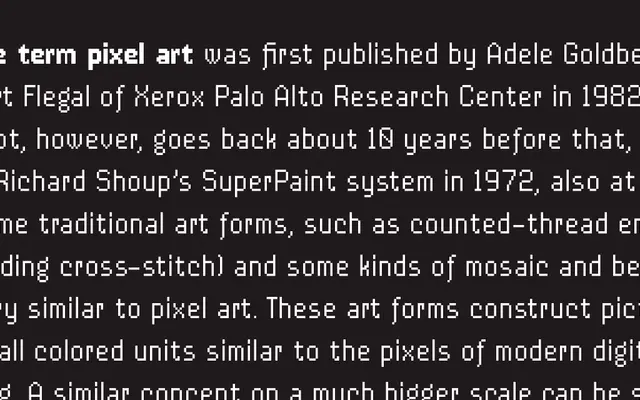
A pixel typeface built on a 20px grid, drawing from 1980s video game aesthetics and refined with over 300 manual kerning pairs.
Conceived at 20px to allow greater structural freedom, Dixplay sits in an interesting position for a pixel font: it has been given serious typographic attention where most of its peers have none. Over 300 manually fitted kerning pairs are unusually meticulous for the genre, and the result works at screen sizes and their multiples with genuine grid integrity. Two weights, Regular and Black, cover Latin Extended characters including ligatures and a broad range of punctuation.
A pixel-grid display typeface designed on a 20px foundation, drawing from 8-bit video game aesthetics. Its construction is entirely rooted in pixel/bitmap conventions, placing it firmly in the display category with a pixel subcategory.